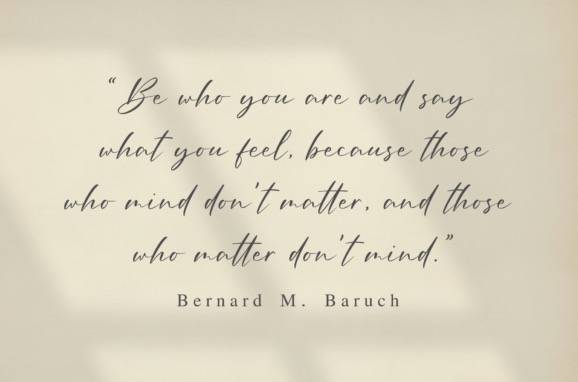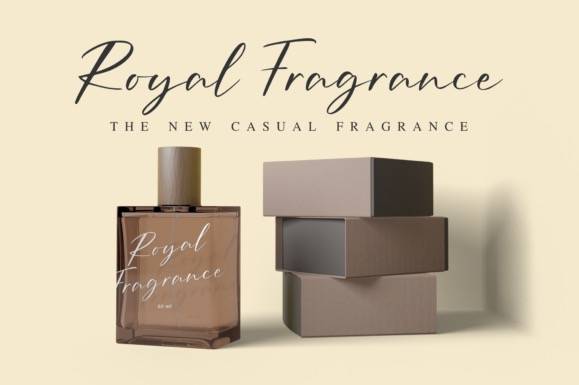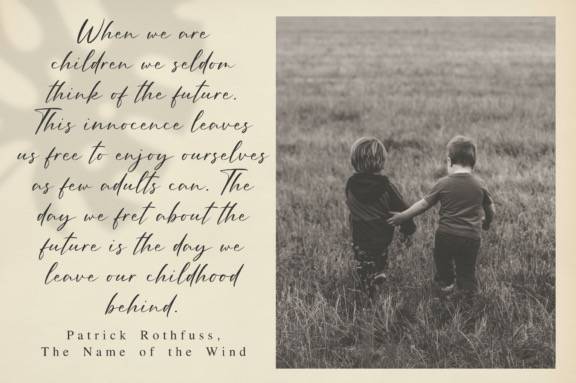
With a signature style and quick-dry strokes, Amellian Gressida font is perfect for homeware designs, branding projects, product packaging, etc. This signature font was designed and released by Sibelumpagi Studio. So, This beautiful handwritten font will take your design ideas to the next level.
This signature font supports many languages. You can use this font for many purposes such as branding projects, homeware designs, product packaging, etc.
Amellian Gressida Signature Font